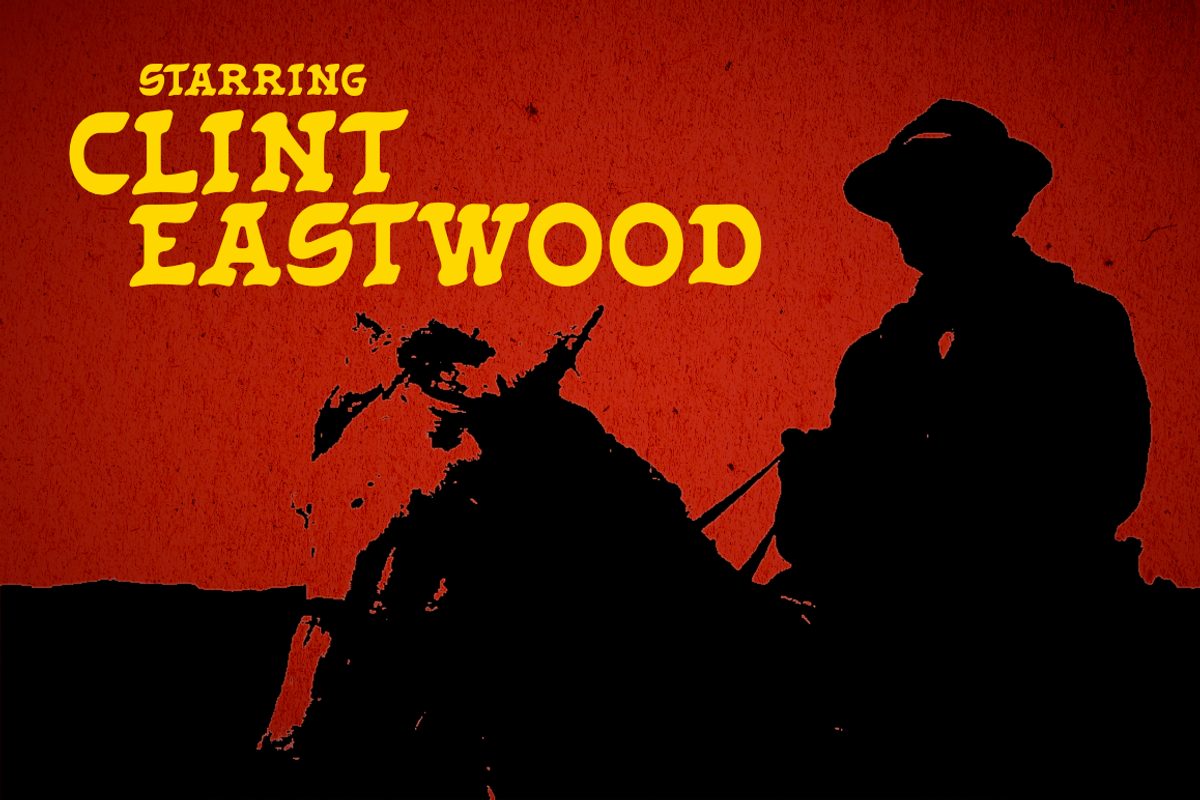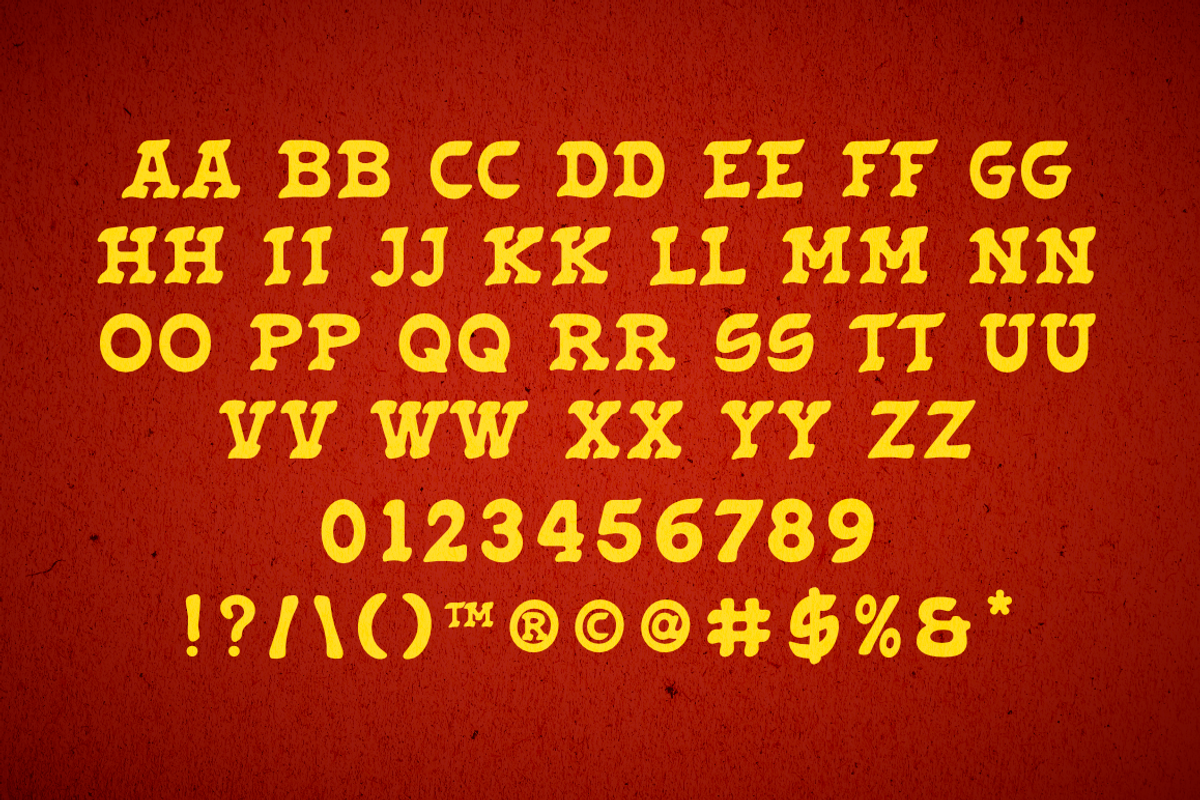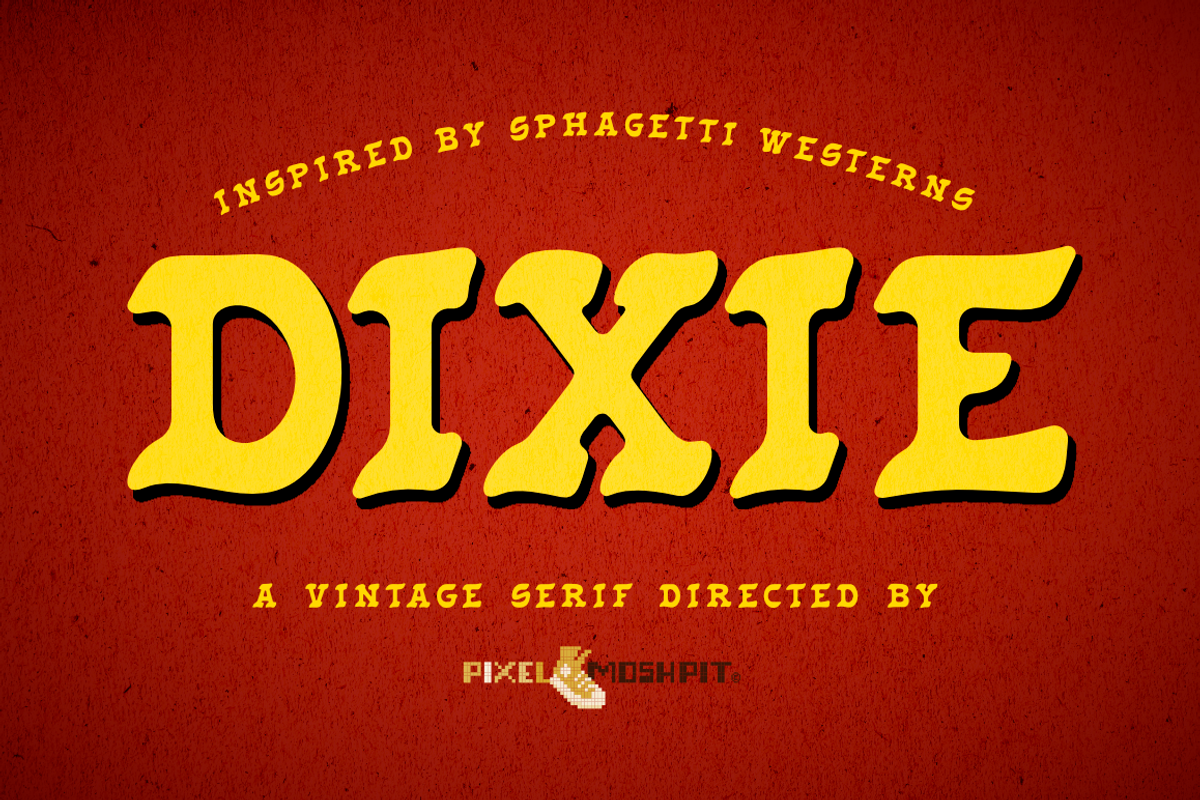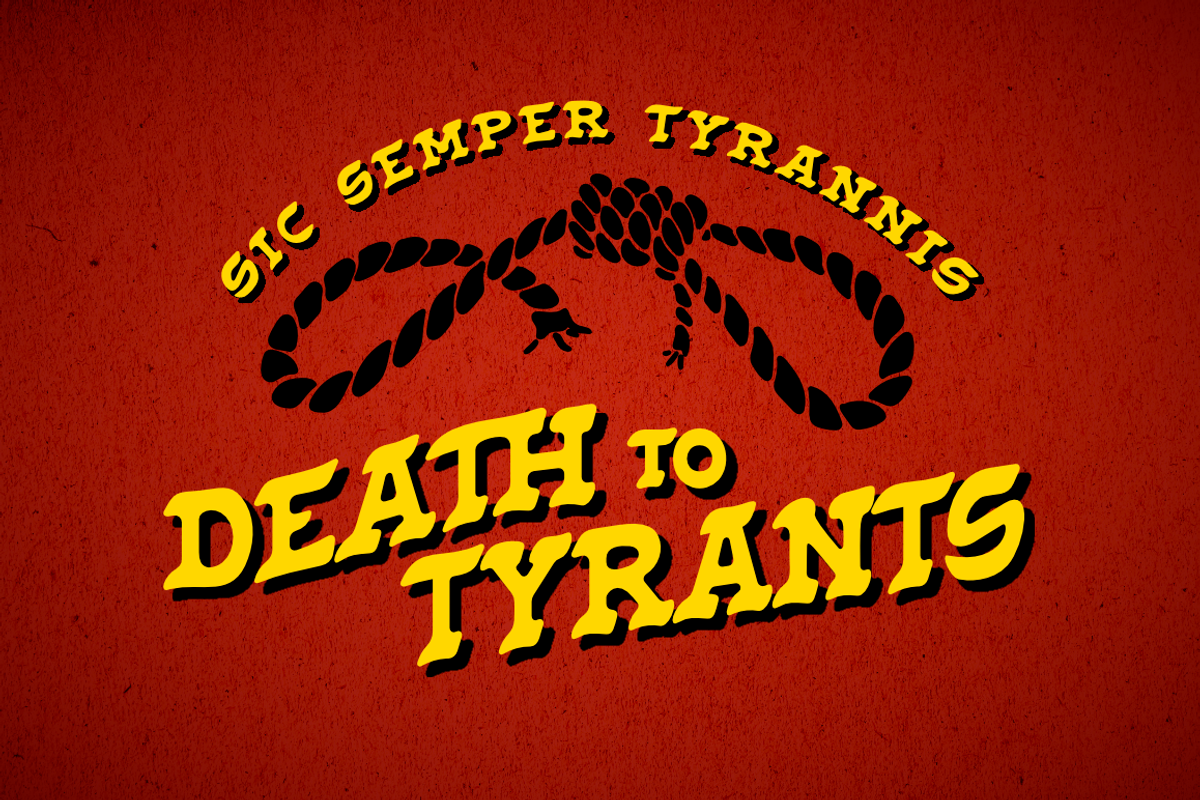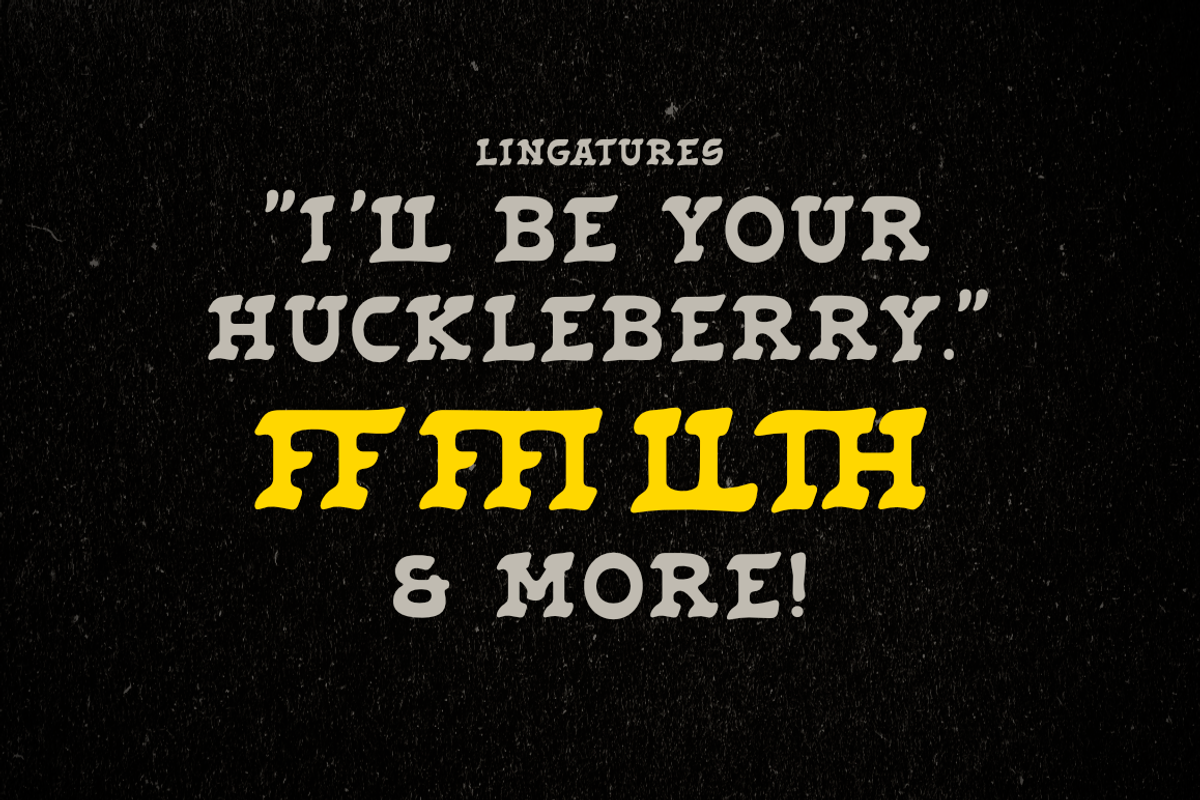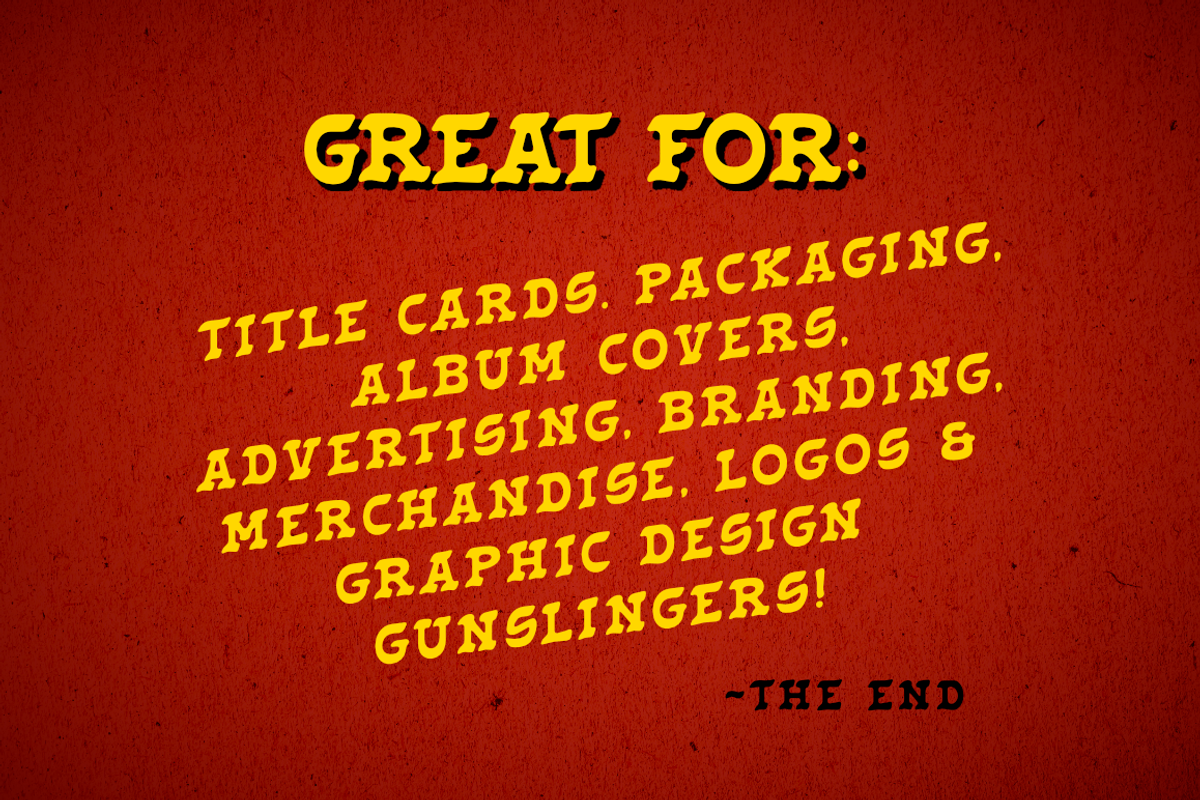
Dixie | Vintage Serif Handmade Font
PROUD TO INTRODUCE: Inspired Handmade Vintage Serif "Dixie"!
This font is an Uppercase font with numerals, punctuation, ligatures, and alternates. Characters also include some alternates to help you in certain situations. This font works with apparel typography layouts, inspired motion graphics like the old westerns all the way to branding, logos, merch & album covers.